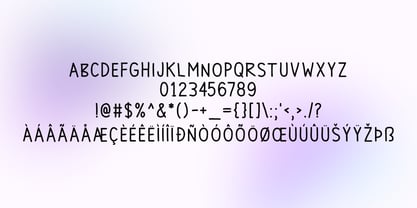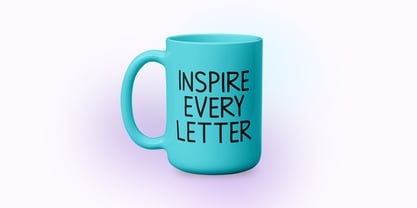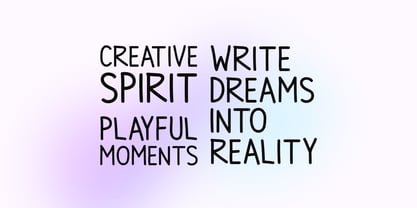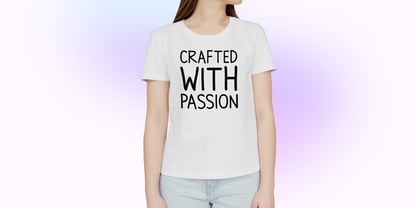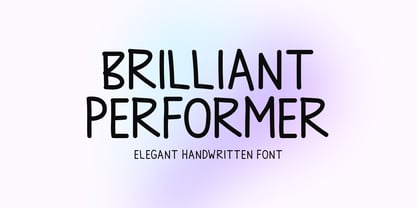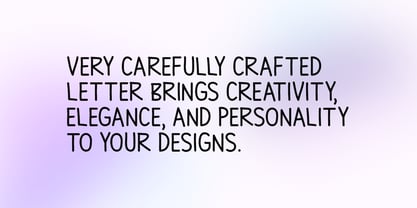
Brilliant Performer
by Seemly Fonts
The Brilliant Performer Font Family was designed by Md. Sohail Bhuiyan and published by Seemly Fonts. Brilliant Performer contains 1 styles. More about this family
Brilliant Performer is an elegant handwritten font designed to bring creativity and sophistication to every design project. Its smooth curves and natural strokes create a perfect balance between style and readability. Ideal for branding, invitations, logos, quotes, and social media graphics, this font adds a personal and artistic touch. With its modern yet handcrafted feel, Brilliant Performer helps designers express emotion, elegance, and uniqueness in every creative composition.
Designers: Md. Sohail Bhuiyan
Foundry: Seemly Fonts